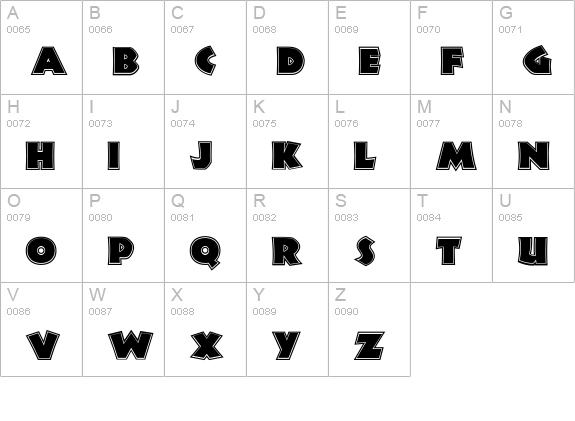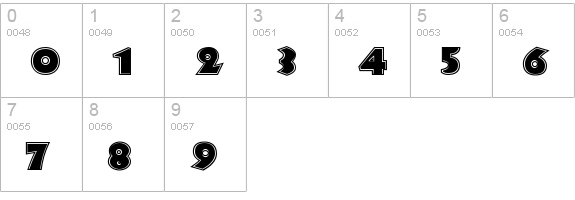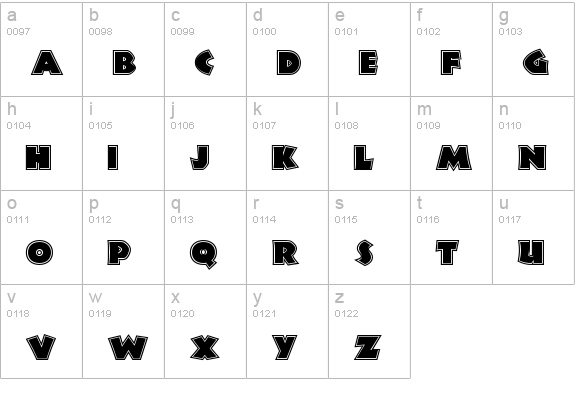
Jungle Fever Inline NF font is a captivating and dynamic typeface that exudes a sense of adventure and flair. Its stylish inline design gives a modern twist to traditional typography, making it perfect for projects that require a bold and eye-catching look. This versatile font is ideal for logos, headlines, posters, and other design projects that demand attention. What sets Jungle Fever Inline NF font apart is not just its striking appearance, but also the fact that it is available for free download at FontsMarket.com. This means that designers and creatives can easily access this unique typeface without any cost, adding a touch of creativity and originality to their work without breaking the bank. Whether you're working on a personal project or a commercial venture, Jungle Fever Inline NF font is a fantastic choice that will elevate your designs to new heights.